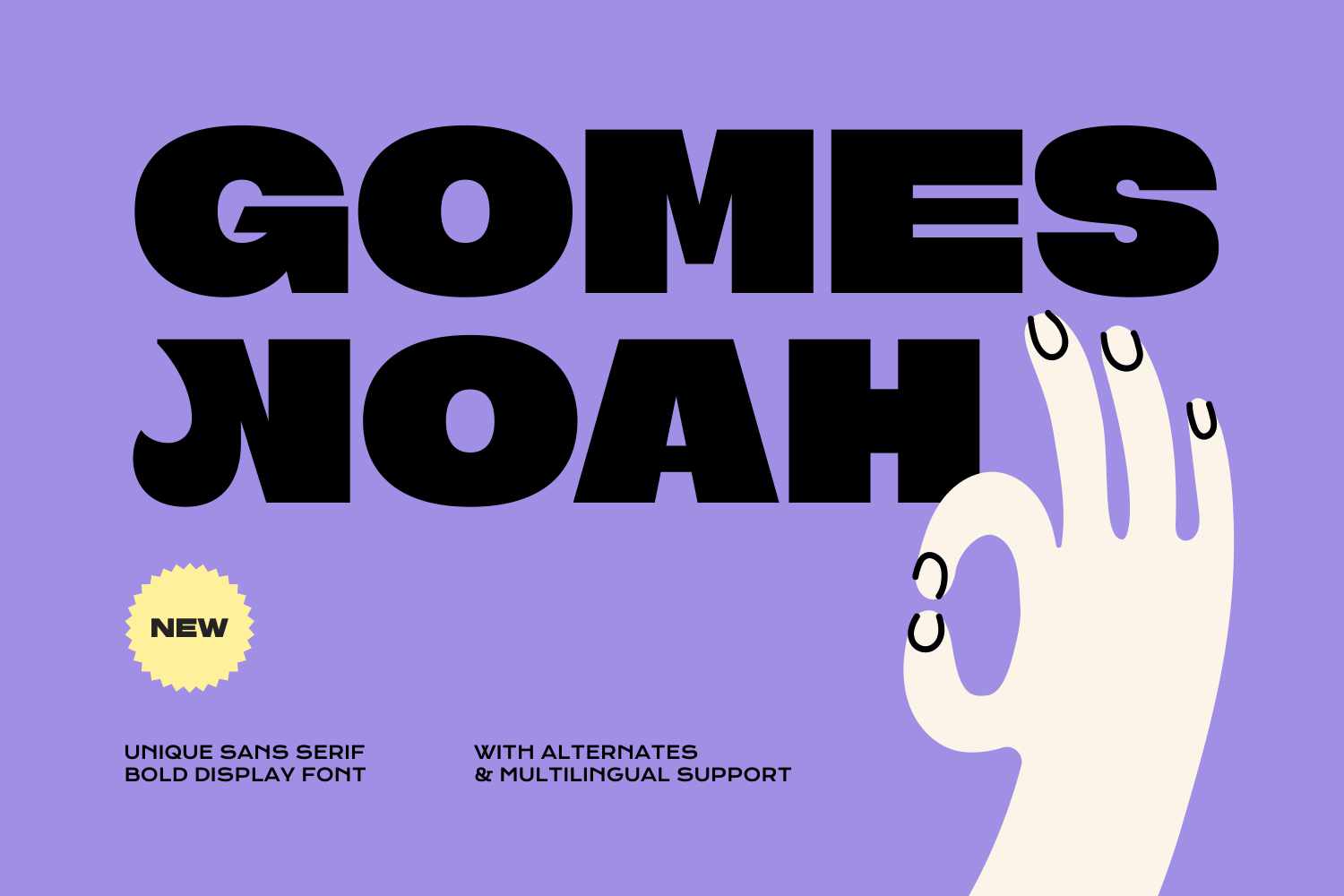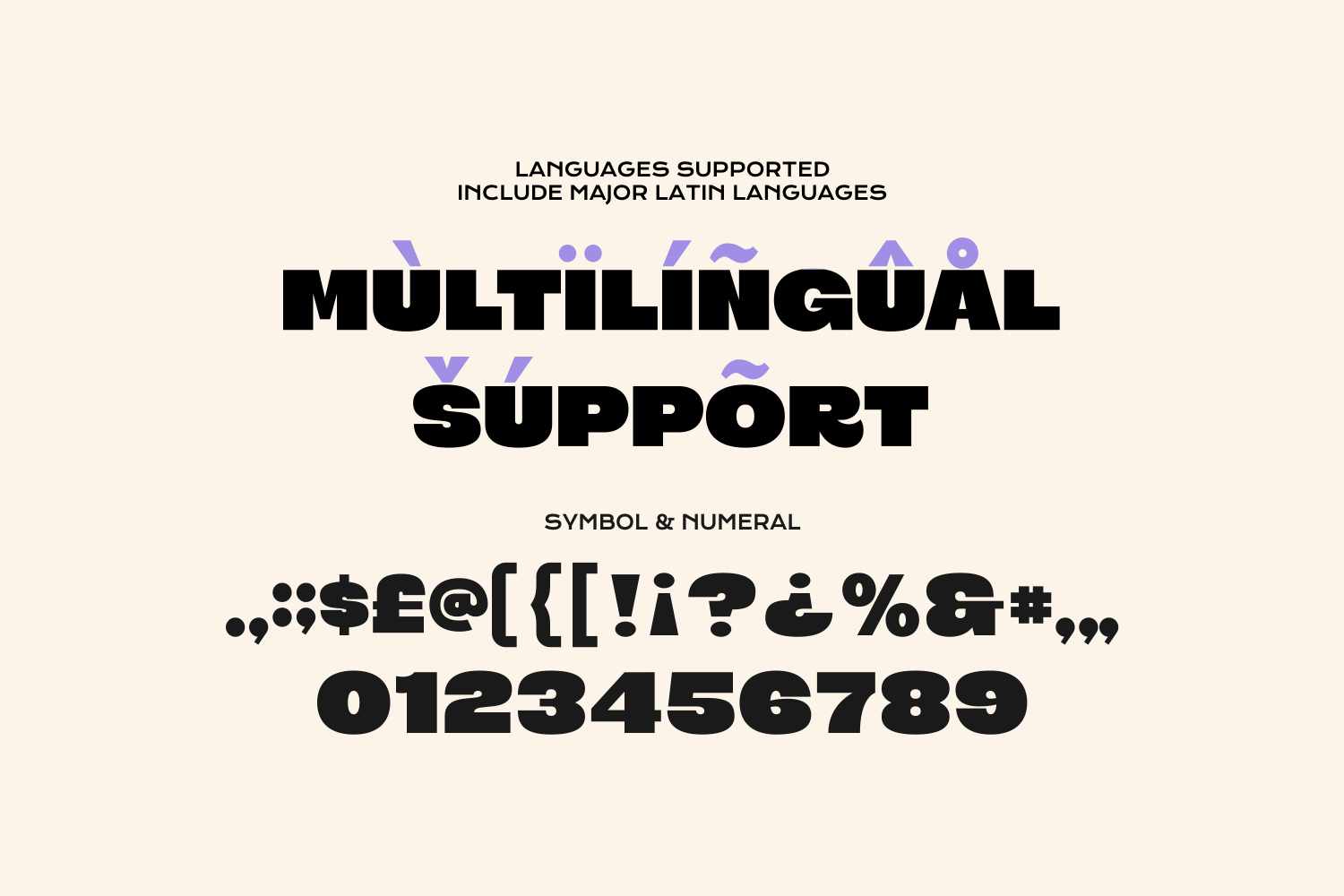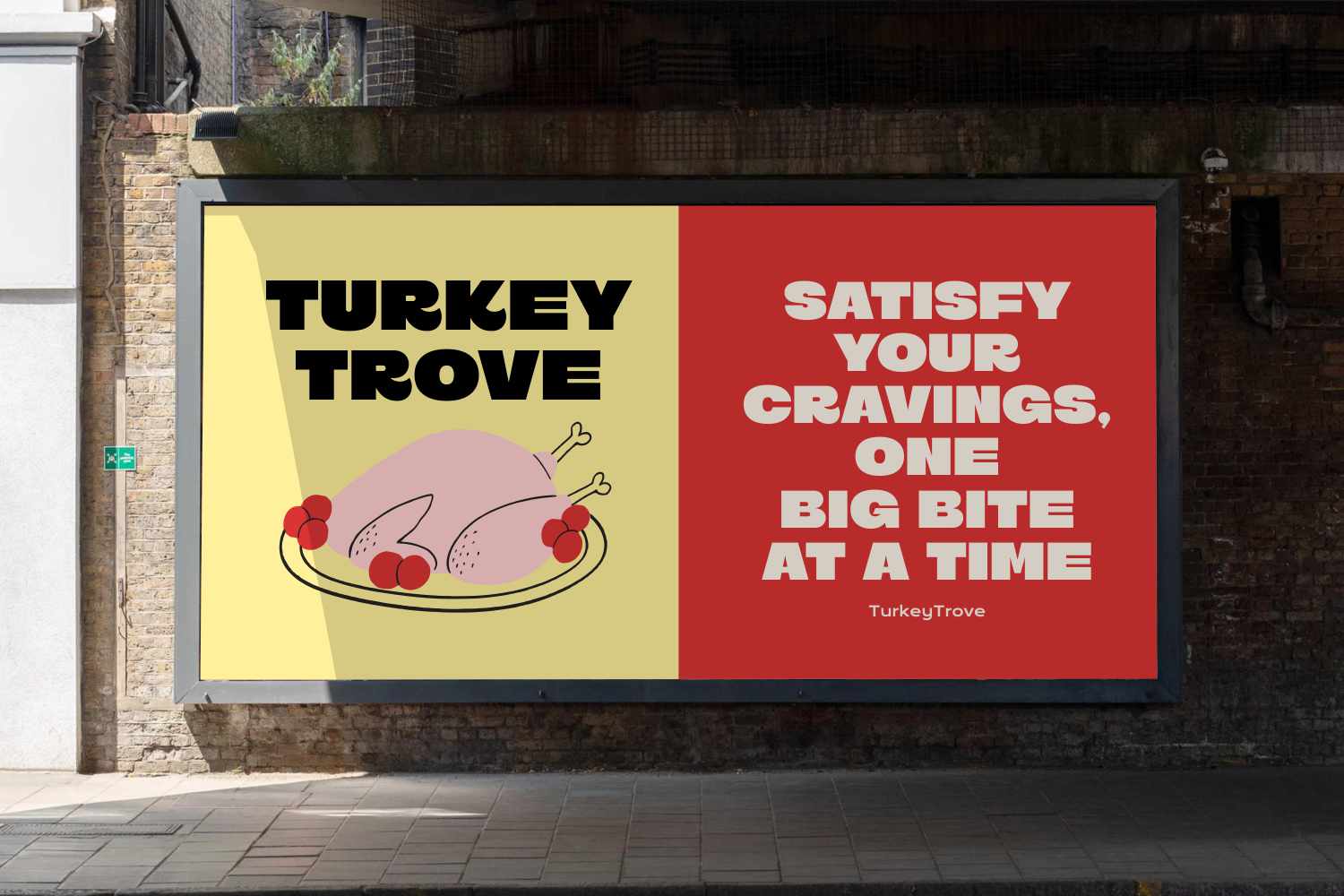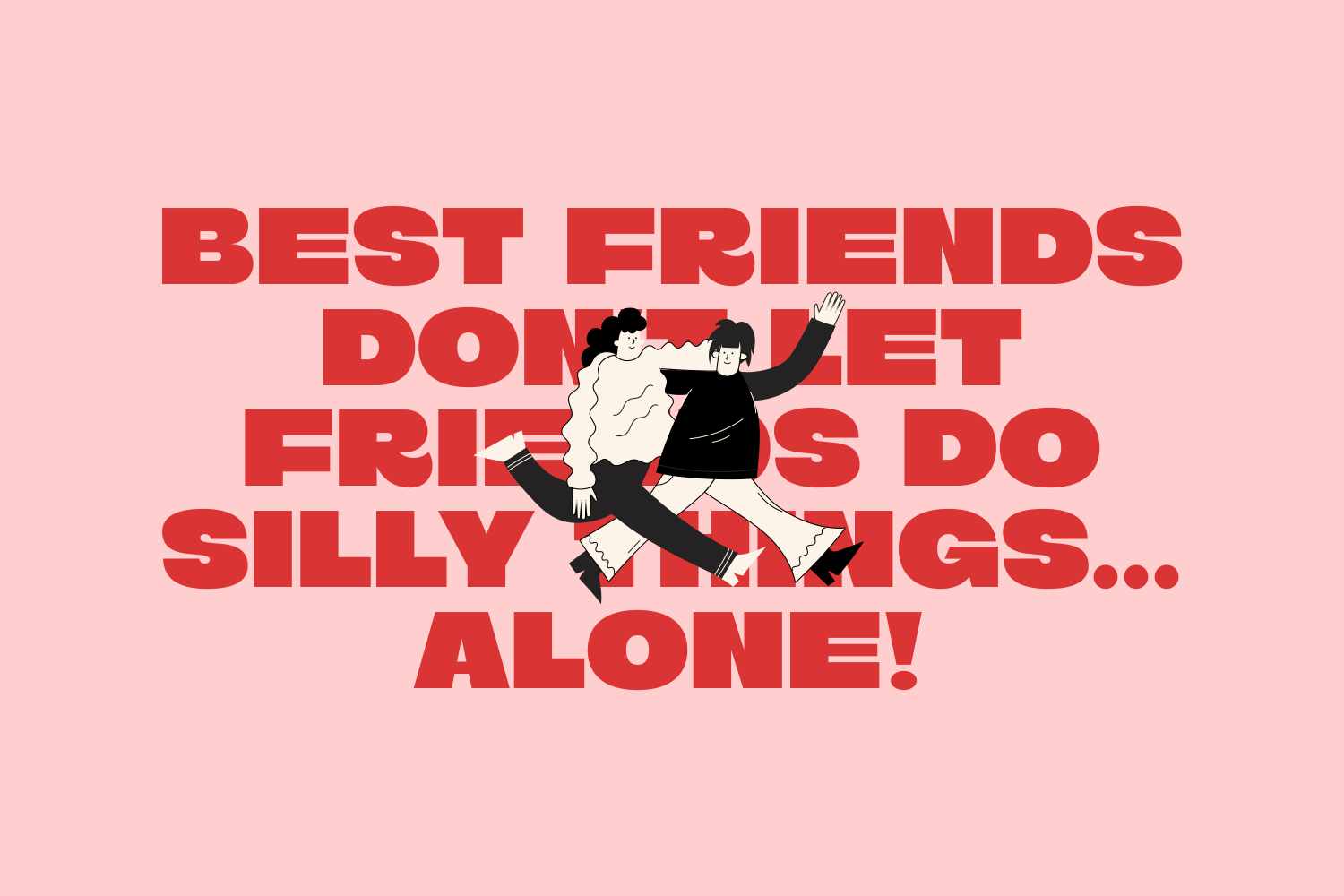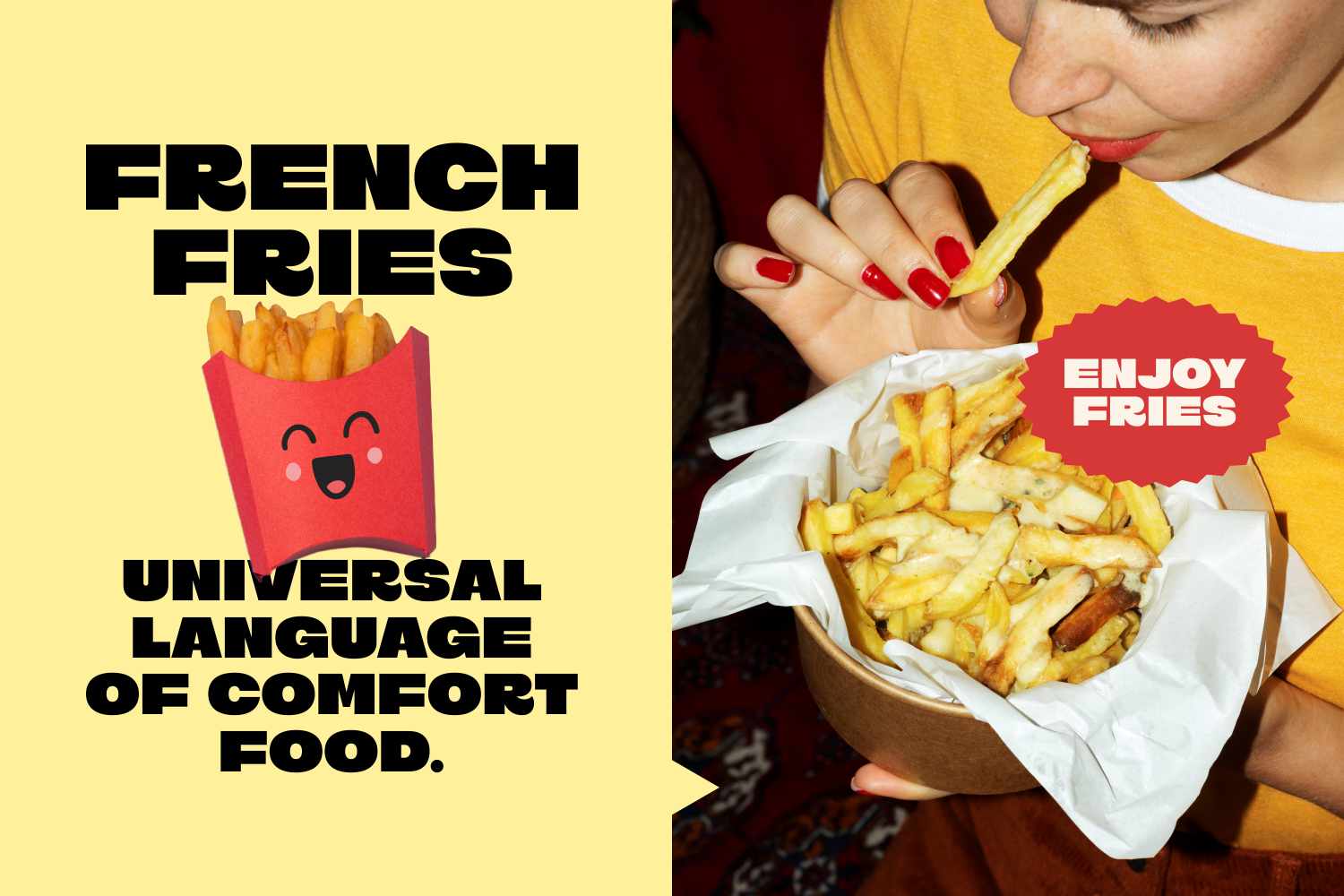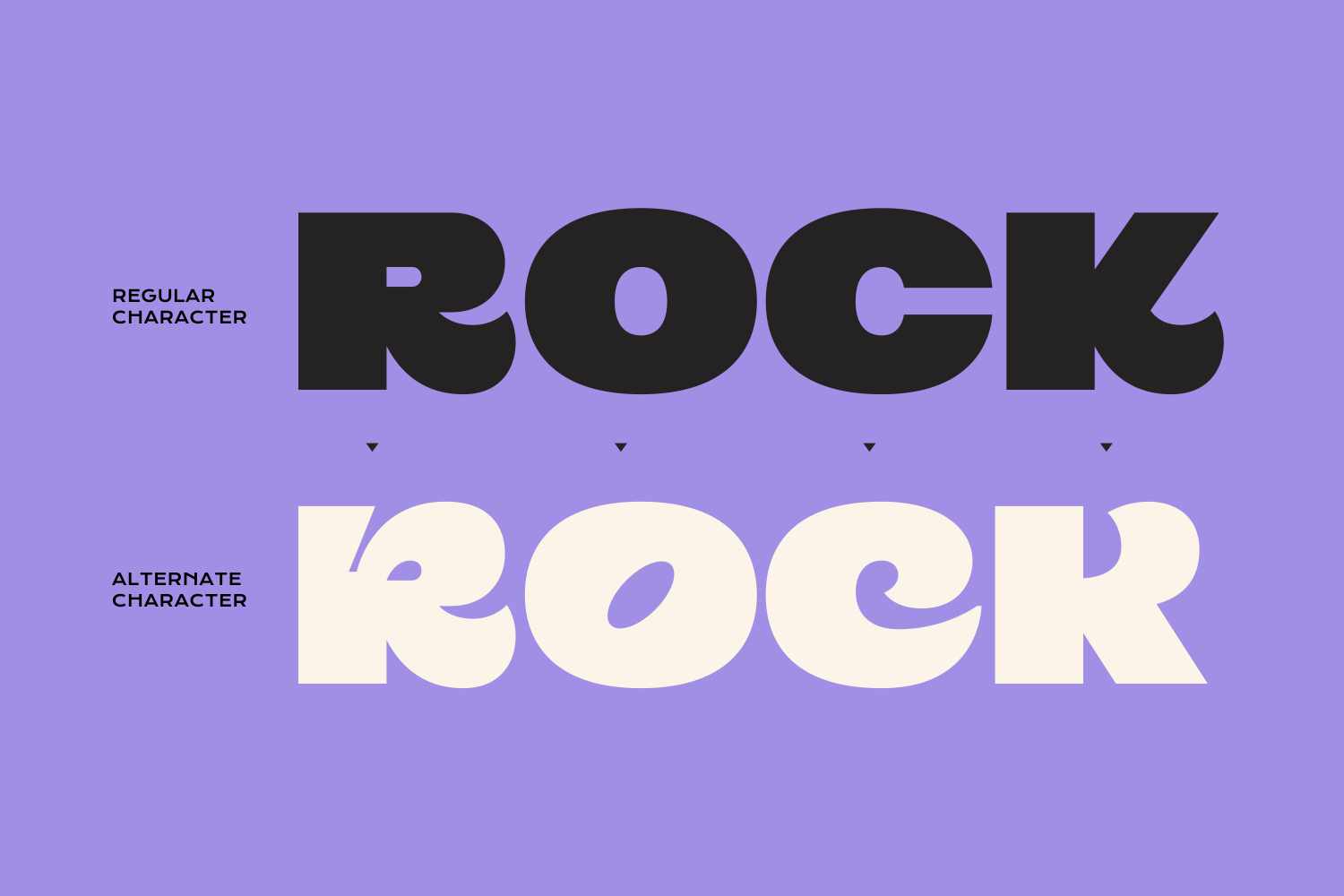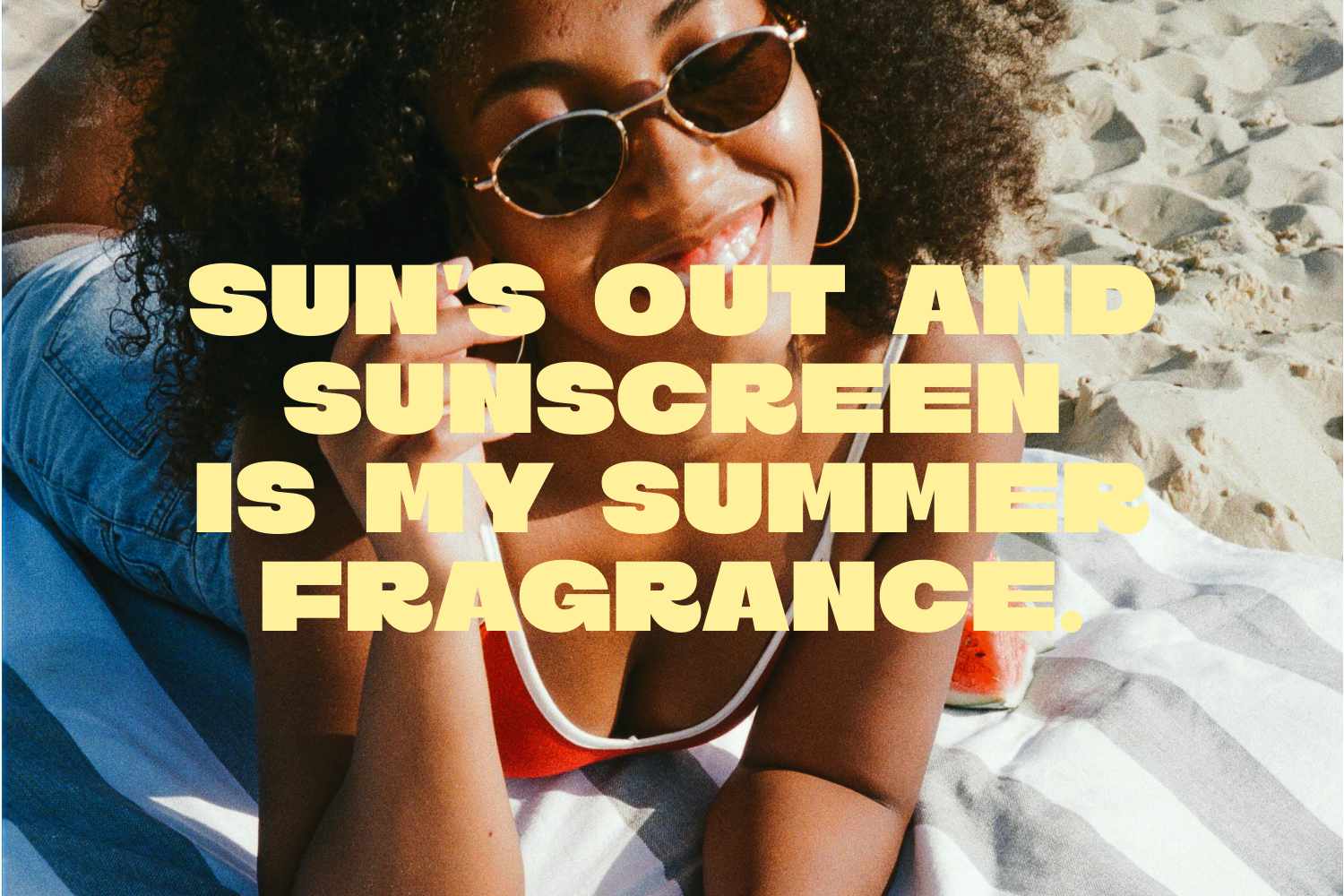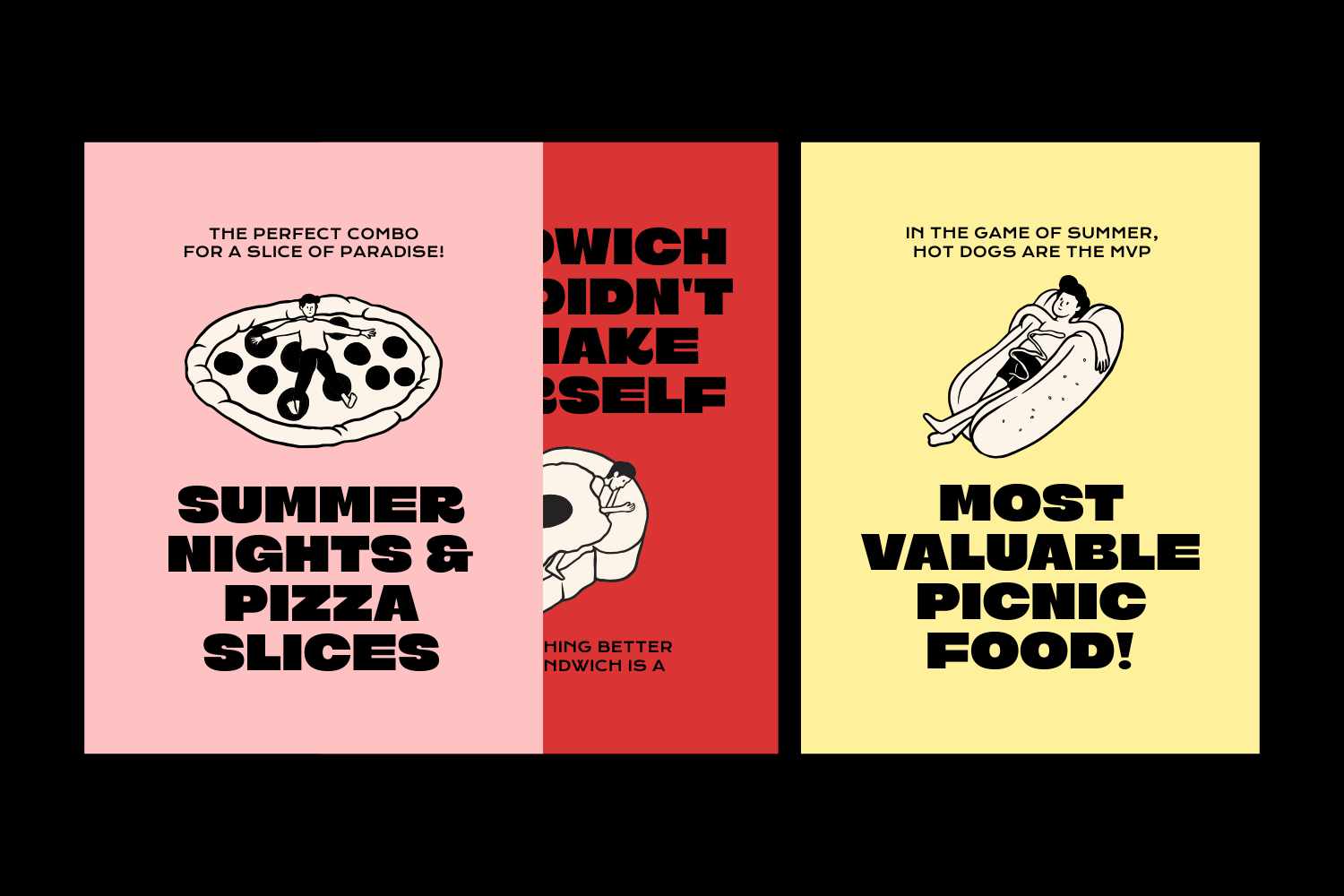
Gomes Noah – Bold & Playful Sans Display Font
Gomes Noah is a bold sans-serif display font packed with personality. With chunky curves, unique letter alternates, and a hint of retro funk, it’s perfect for playful branding, packaging, posters, apparel, and social content. The font includes alternate characters and multilingual support to give your typography a fresh and versatile look.
Ideal for lifestyle products, food brands, youth-oriented campaigns, or anything that needs a bold visual punch. Whether you want a clean modern layout or a funky retro twist, Gomes Noah delivers fun, confidence, and flexibility in one dynamic font.
Gomes Noah